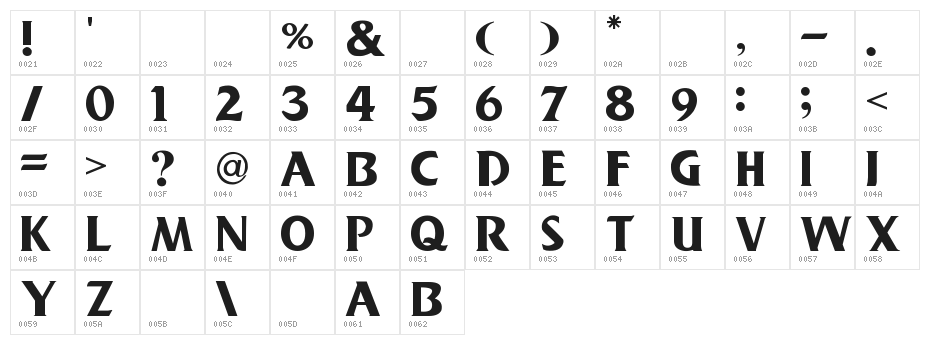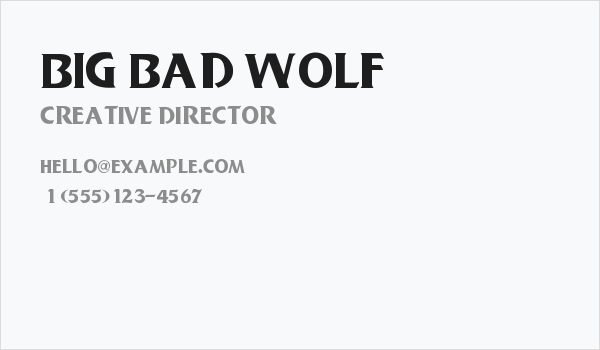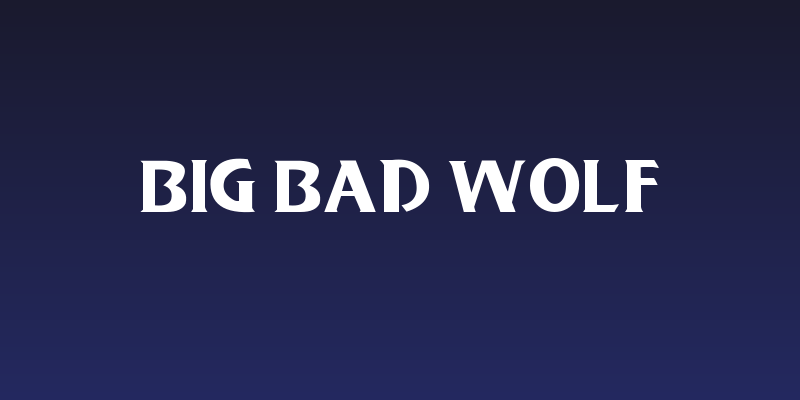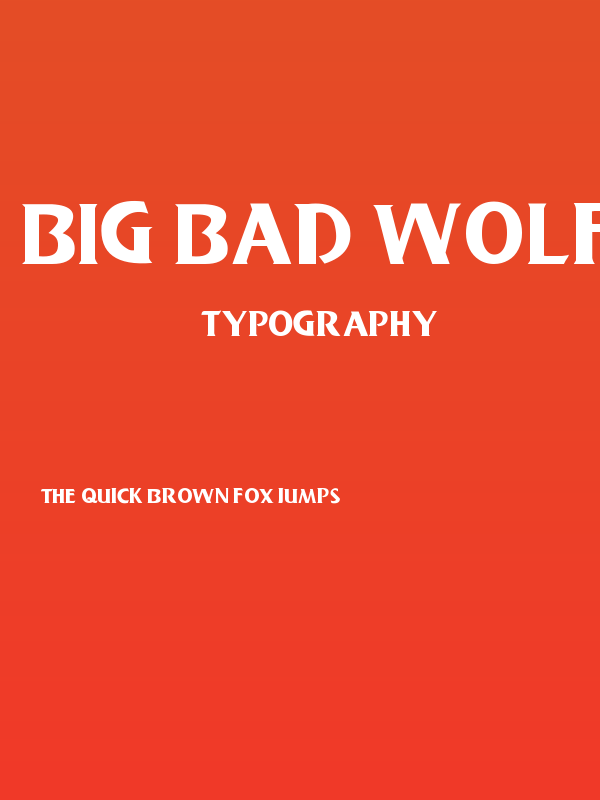
Big Bad Wolf Font
Big Bad Wolf Description
This font features a bold and dramatic style with strong, angular serifs and a commanding presence. The uppercase letters are particularly striking, with a slightly condensed form that emphasizes their height and power. The lowercase letters maintain the same boldness, ensuring consistency across the typeface. Numbers are equally robust, making them stand out in any design. The special characters are crafted with the same attention to detail, providing a cohesive look throughout. This font is ideal for making a statement, with its high contrast and distinctive style.
| Proposed Projects | Ideal for headlines, posters, branding, and any project requiring a strong visual impact. |